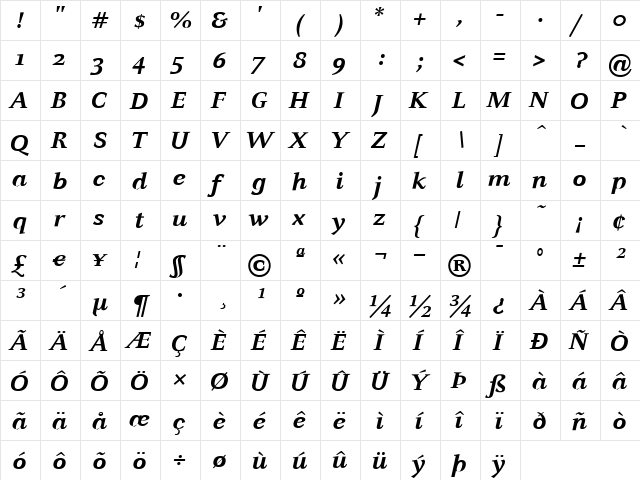
CelesteST ItalicBold
Design Context for CelesteST Typeface
CelesteST takes a measured approach to typography — its balanced proportions and neutral character make it a reliable workhorse for both digital and print work. The dynamic lean of this cut emphasises speed and emphasis in any layout. Its bold stroke weight gives it real presence on the page.
Pro Tip: Use CelesteST for emphasis, pull quotes, and subheadings where its slanted energy can add rhythm to the layout.